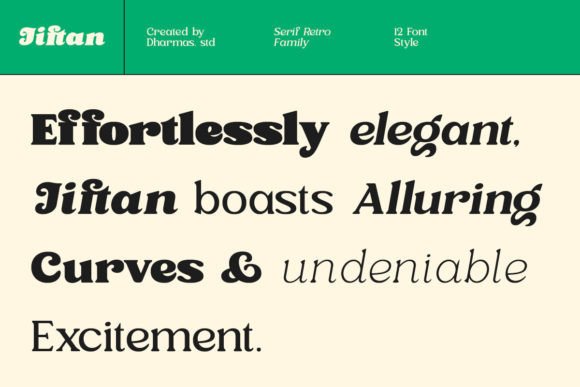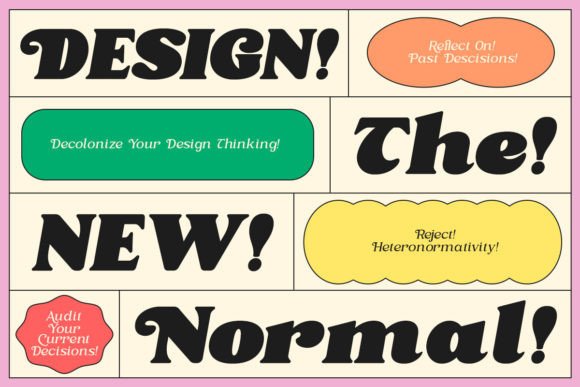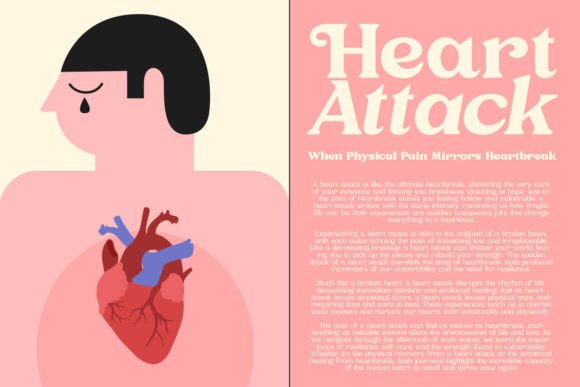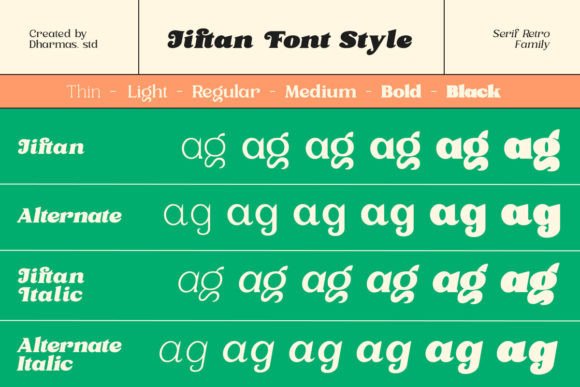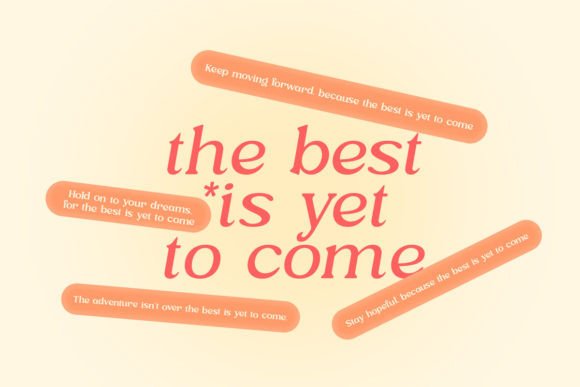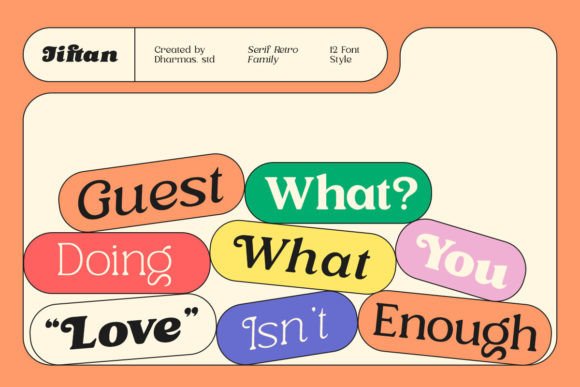
Introduction to Jiftan Font
Introducing Jiftan – Inspired by more than a hundred years of typographic evolution, Jiftan is a soft and rounded old-style serif typeface that echoes the charm of the sixties era.
Jiftan offers a clean and versatile letterform that is perfect not only for display but also for reading purposes Jiftan is equipped with over 40 unique ligatures and alternates, making it an excellent choice for creating stunning logos, quotes, posts, blog posts, branding projects, magazine imagery, wedding invitations, and much more.